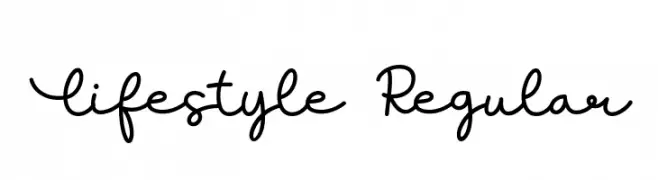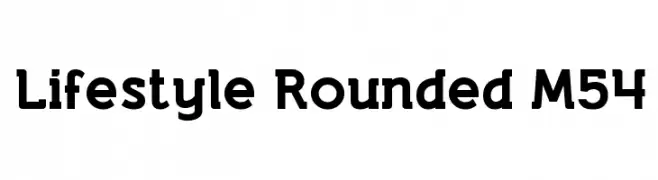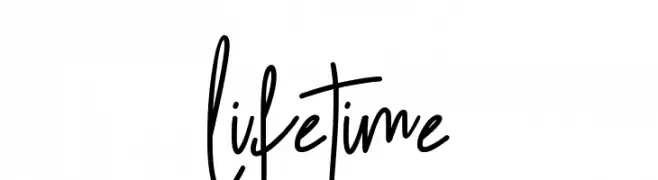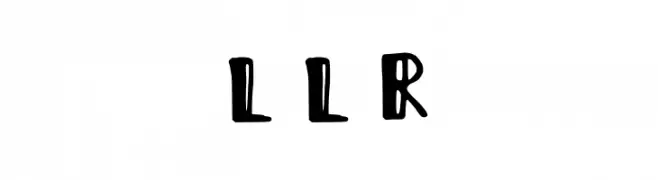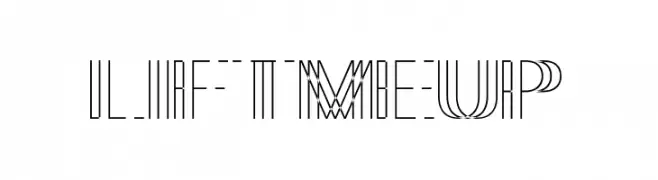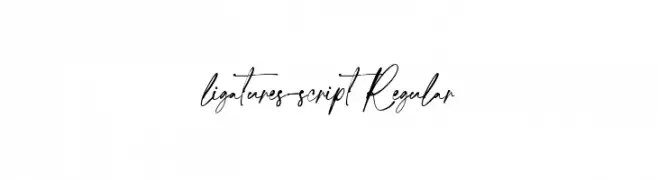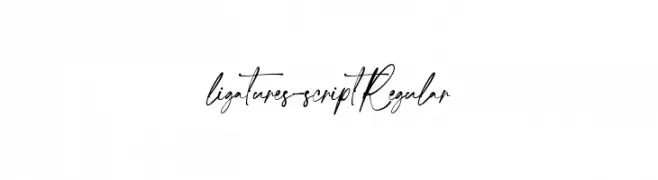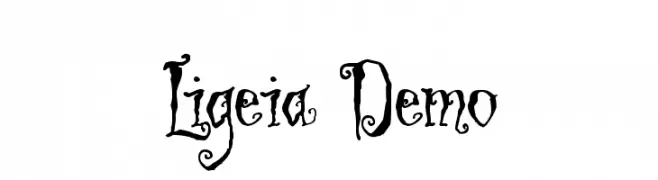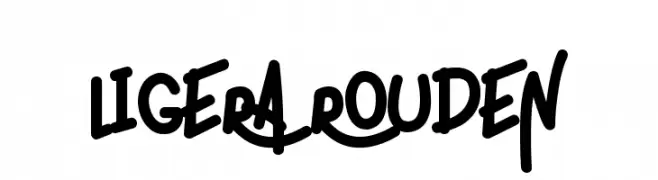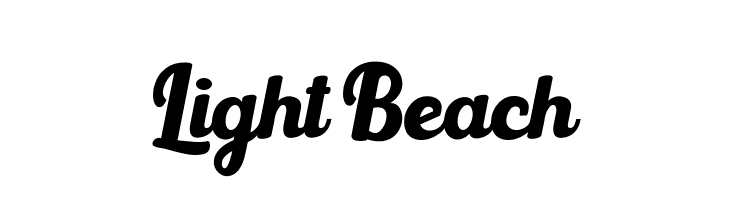
A casual, handwritten script with a smooth, flowing style.
A rounded, bold font with a modern and approachable style.
A lively, expressive handwritten font with fluid, dynamic strokes.
A bold, playful, hand-drawn font with a whimsical and artistic feel.
A decorative font with overlapping lines creating a modern, artistic look.
A futuristic, geometric font with bold, rounded shapes and unique cutouts.
A flowing, handwritten script font with elegant ligatures and a dynamic style.
A flowing, cursive script font with elegant, interconnected letters.
A decorative and gothic-inspired font with ornate swirls and curls.
A bold, graffiti-inspired handwritten font with tight spacing and dynamic strokes.